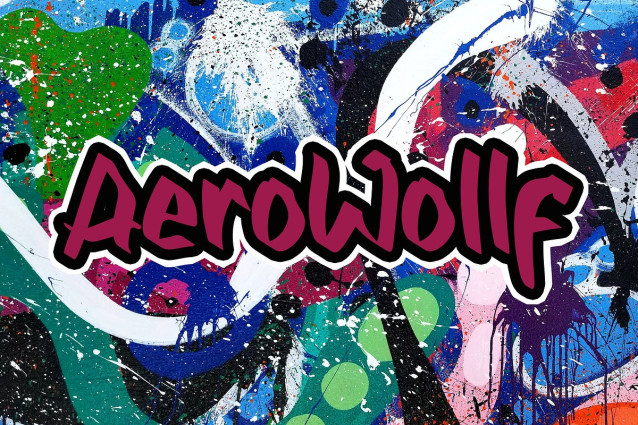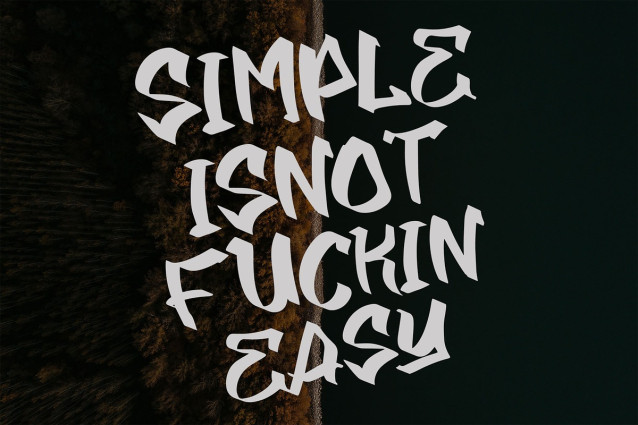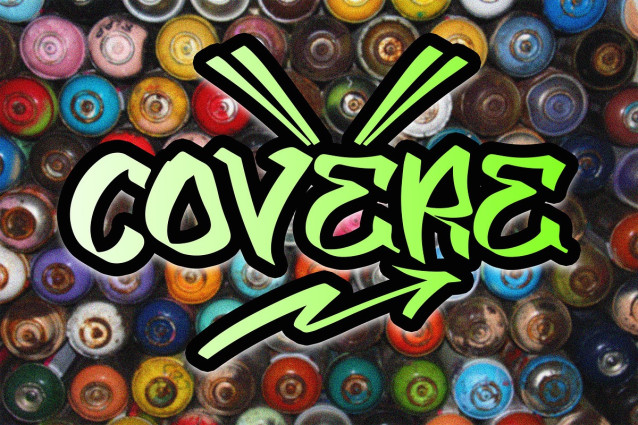
Covere Gaffiti Font
Covere Gaffiti Font a dynamic graffiti font with a bold handbrush style that stands out with its uniquely crafted characters. This font is perfect for adding a creative and edgy touch to your designs, making your graphics more eye-catching and impactful. Whether you’re working on street art-inspired projects, posters, or branding, COVERE will elevate the visual appeal of your work.